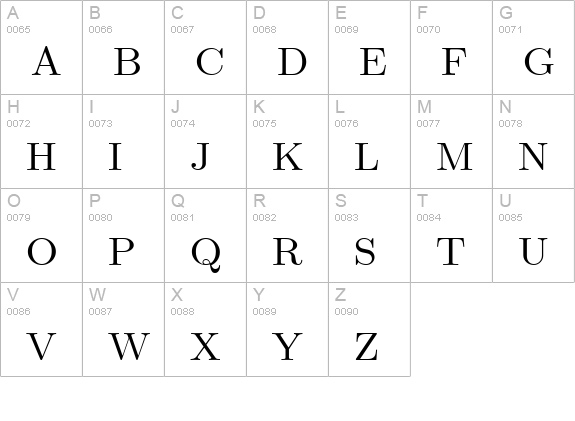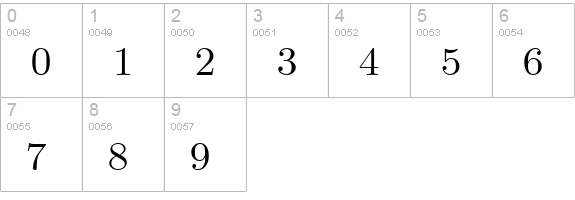
TeXplus EM is a stunningly elegant font that perfectly combines timeless sophistication with a modern twist. This font is the epitome of style, making it ideal for a wide range of design projects, from elegant invitations to eye-catching logos. With its sleek and sleek lines, TeXplus EM exudes a sense of grace and refinement that is sure to captivate any audience. Its carefully crafted letterforms are a testament to the skill and dedication of the font's designer, resulting in a cohesive and harmonious typeface that is both visually pleasing and highly legible. One of the standout features of TeXplus EM is its versatility. This font effortlessly transitions from bold headlines to delicate body text, making it a reliable choice for any design project. Its clean and crisp appearance ensures that every character is easily readable, even at small sizes. What sets TeXplus EM apart is that it is not only visually stunning, but also freely available to download at FontsMarket.com. This means that designers and enthusiasts alike can enjoy the beauty of this font without any financial constraints. Whether you are a professional designer or a hobbyist, TeXplus EM offers a world of creative possibilities at your fingertips. Downloading TeXplus EM from FontsMarket.com is a breeze, ensuring that you can start incorporating this magnificent font into your projects without delay. The website provides a user-friendly interface, making it easy to navigate and find the font that perfectly matches your vision. In conclusion, TeXplus EM is a free font that effortlessly combines elegance and modernity. Its timeless design and versatility make it a must-have for any designer looking to add a touch of sophistication to their creations. Download TeXplus EM from FontsMarket.com and unlock a world of creative possibilities today.